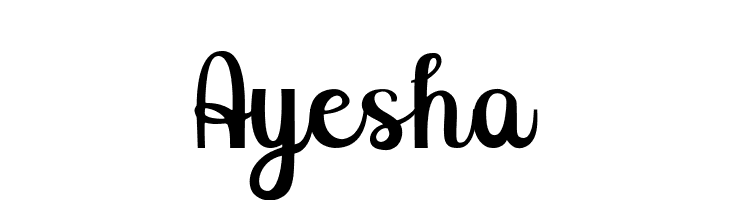
A bold, decorative font with a unique striped pattern and geometric design.
A bold, cursive font with interconnected, wave-like strokes.
A playful handwritten font with smooth, flowing lines and a casual aesthetic.
( Vladimir Fedotov )
A delicate, flowing script font with elegant, interconnected characters.
( pixopop - Ali Sabet - www.pixopop.com )
A playful, hand-drawn font with expressive faces on each character.
( Casually Hardcore - www.casuallyhardcore.co.uk/ )
A bold, pixelated font with a retro video game aesthetic.
A futuristic 3D italic font with geometric and dynamic design.
An elegant script font with flowing, cursive letterforms and sophisticated style.
( Fonts by Ibnu Nur Rahman )
Casual handwritten script font.
A bold, sketch-like font with dynamic, irregular strokes and a hand-drawn feel.